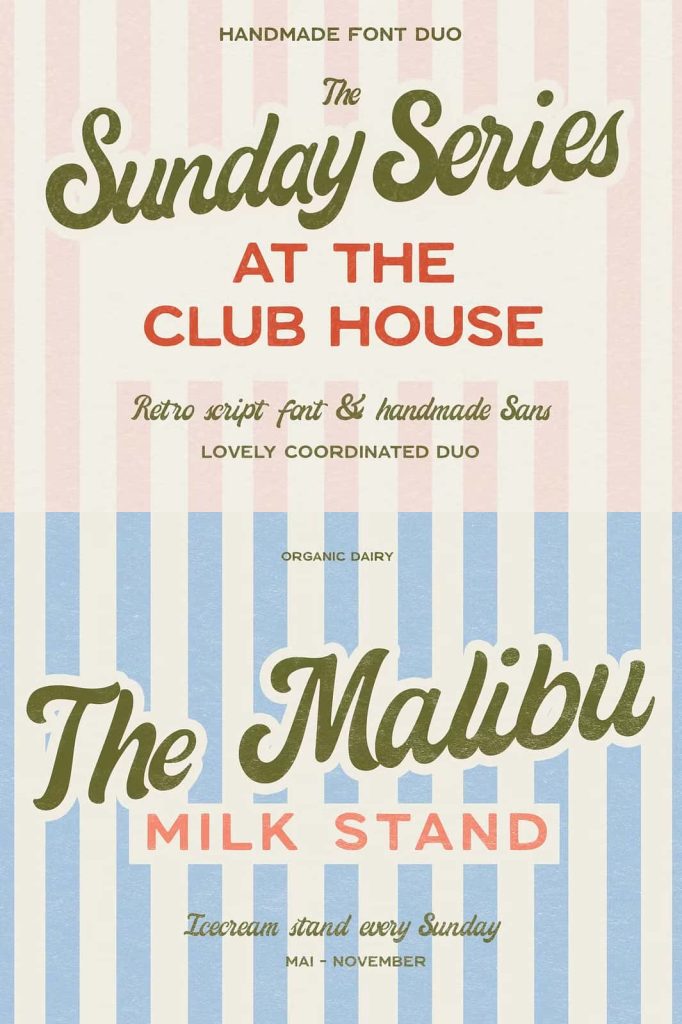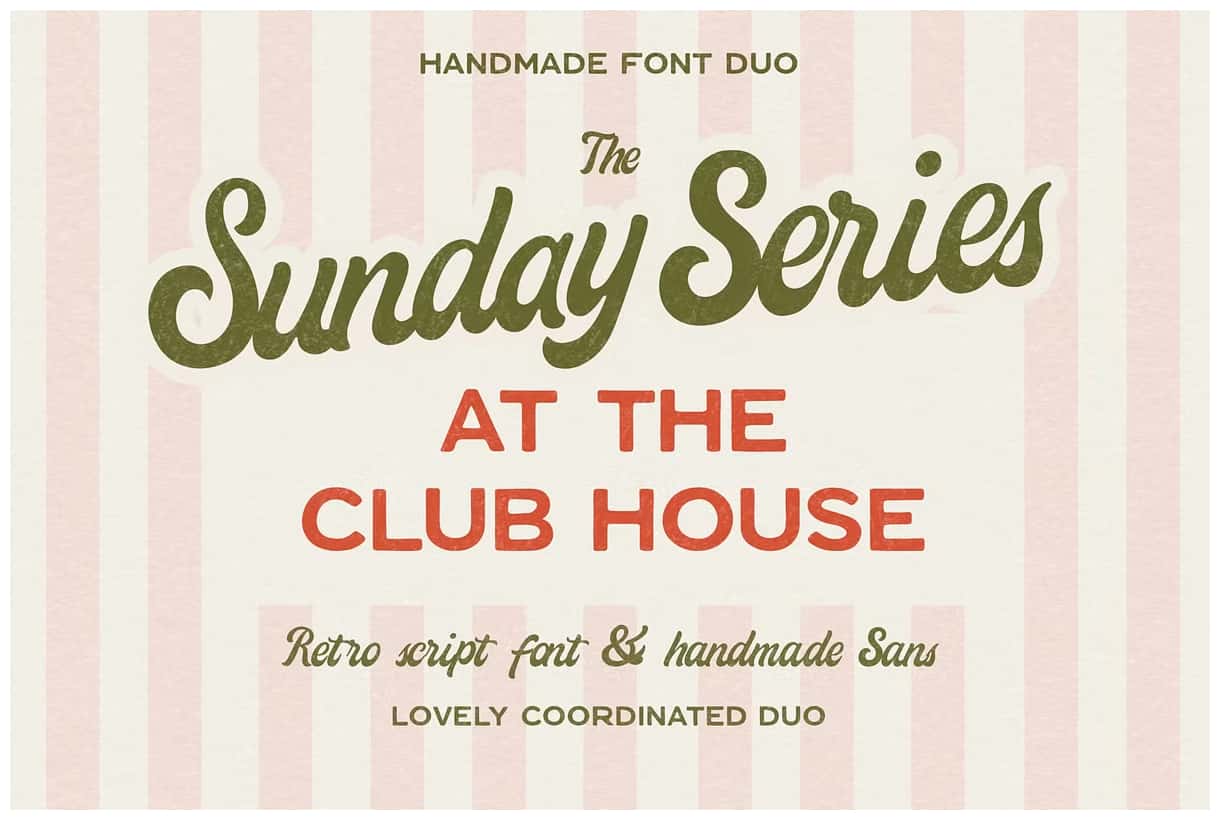
The Sunday Series & Club House come along as a trendy retro font duo, blending the warmth of handmade charm with the polish of sport and leisure. Inspired by vintage country club aesthetics and slow Sunday mornings, it pairs a clean, versatile sans with a romantic script for endless design possibilities. Perfect for branding, logos, packaging, wedding invitations, apparel, and social media graphics, this duo brings an on-trend yet timeless charm with authentic stamp and crafting vibes.